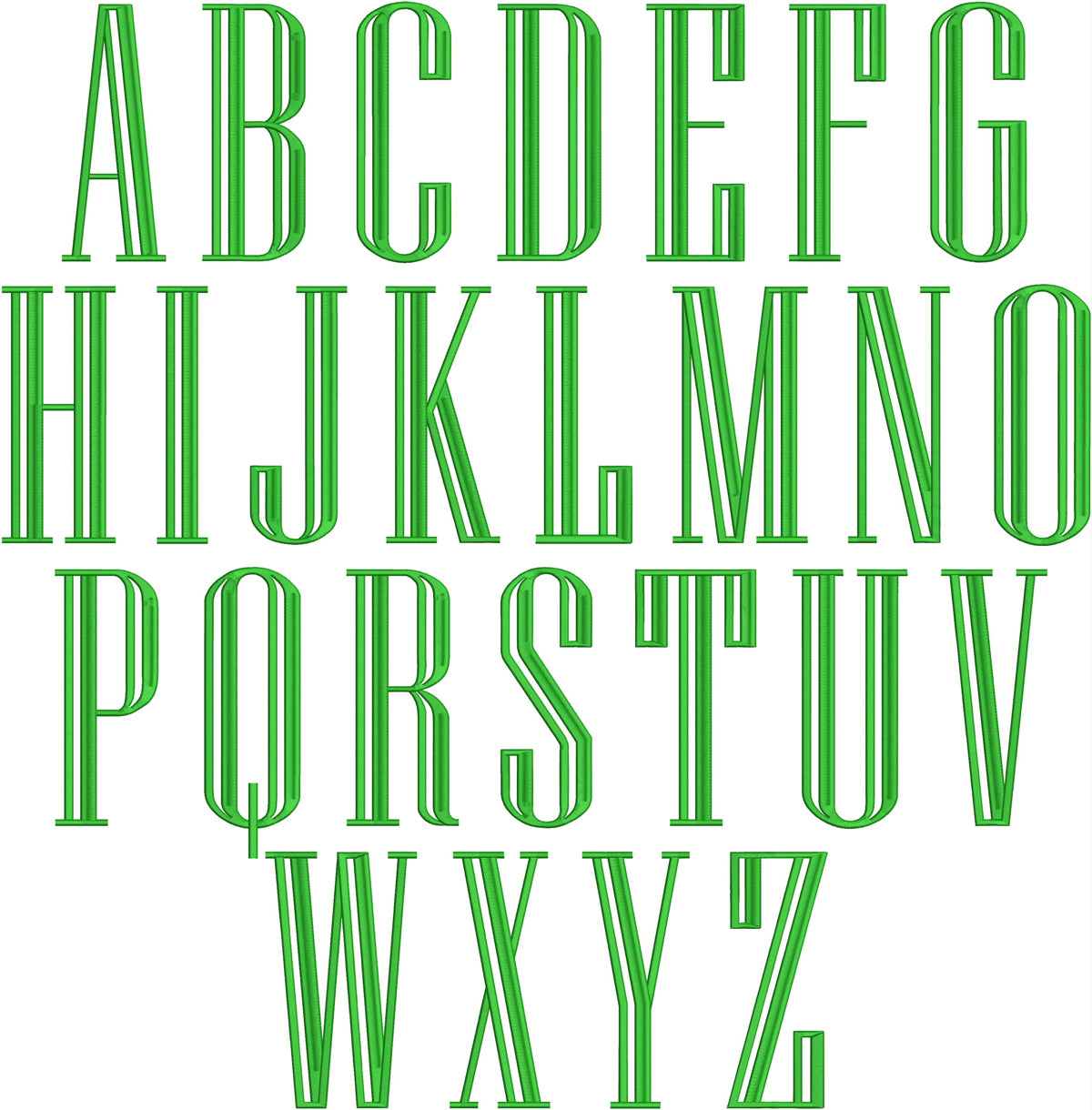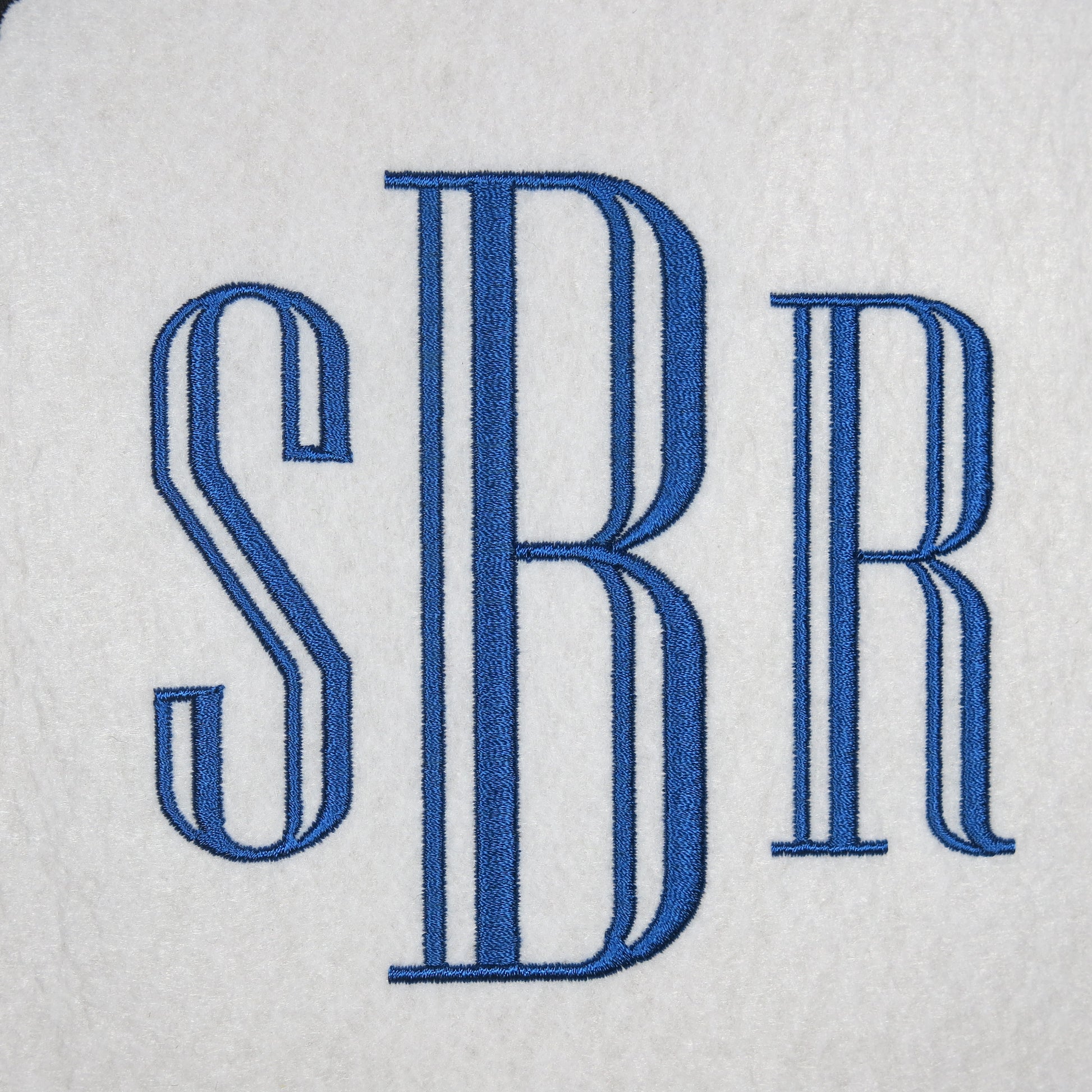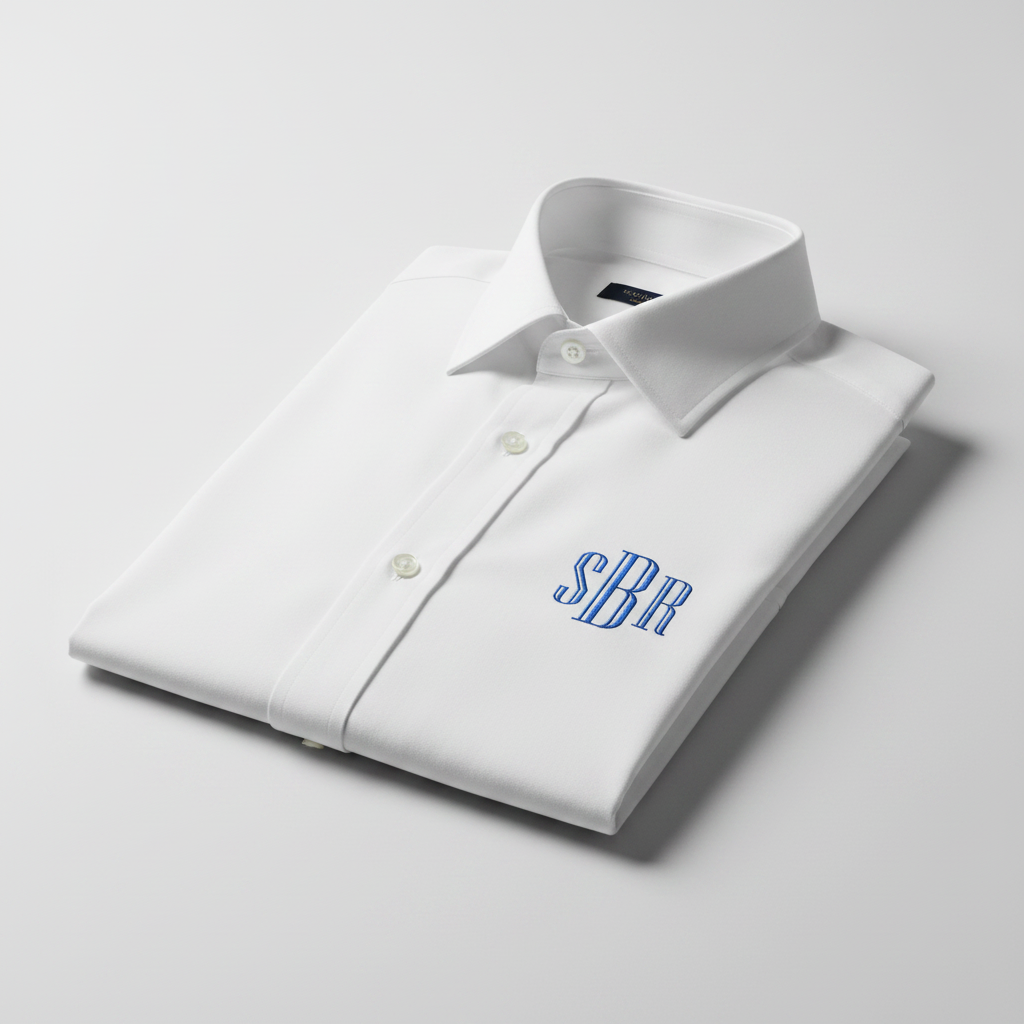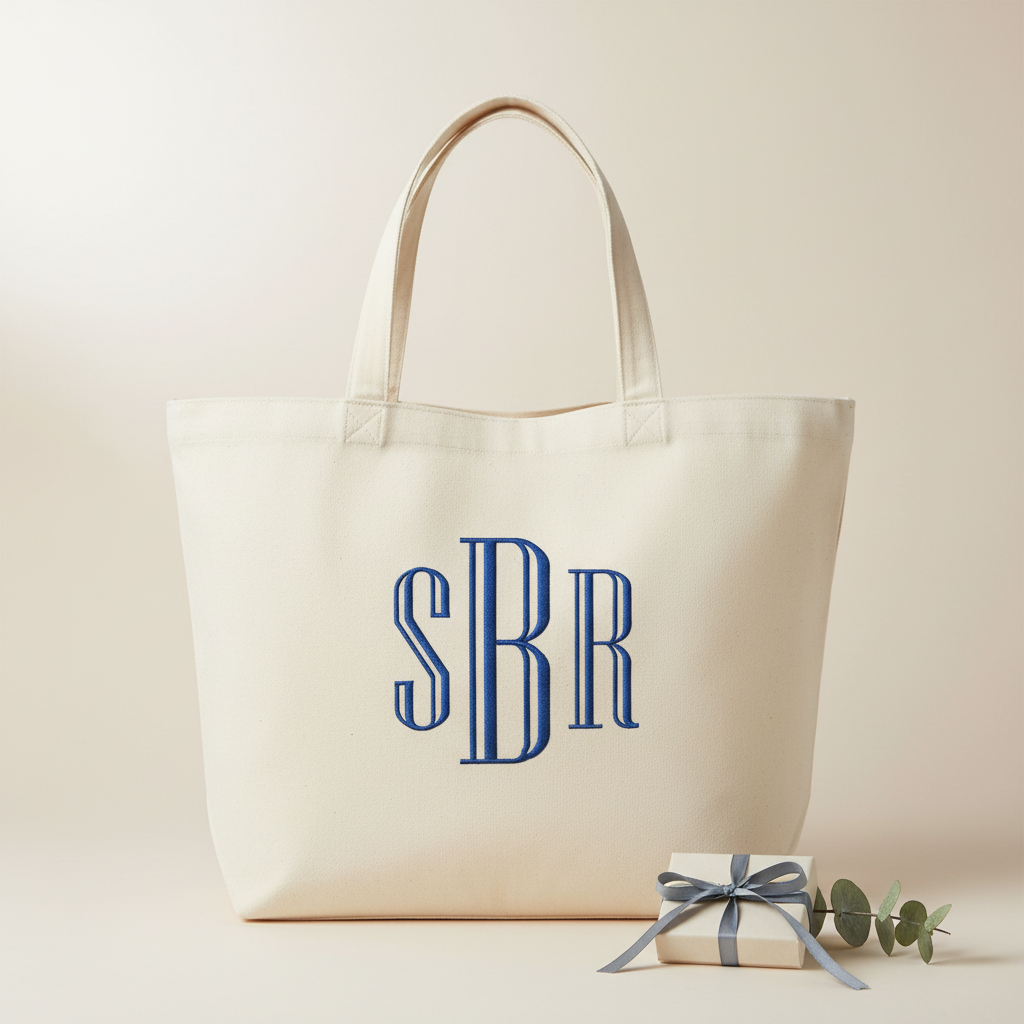
Engraved Embroidery Monogram Font
Engraved Embroidery Font – Full Alphabet A-Z
Elevate your embroidery projects with our Engraved Embroidery Font — a classic, elegant serif font with sophisticated interlocking letter details. Perfect for monograms, dress shirts, tote bags, towels, robes, and personalized gifts.
- Classic serif style with elegant engraved details
- Perfect for monogramming and personalized gifts